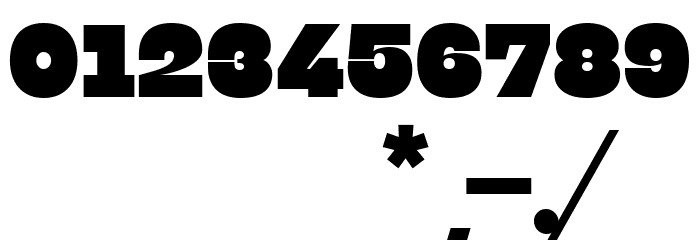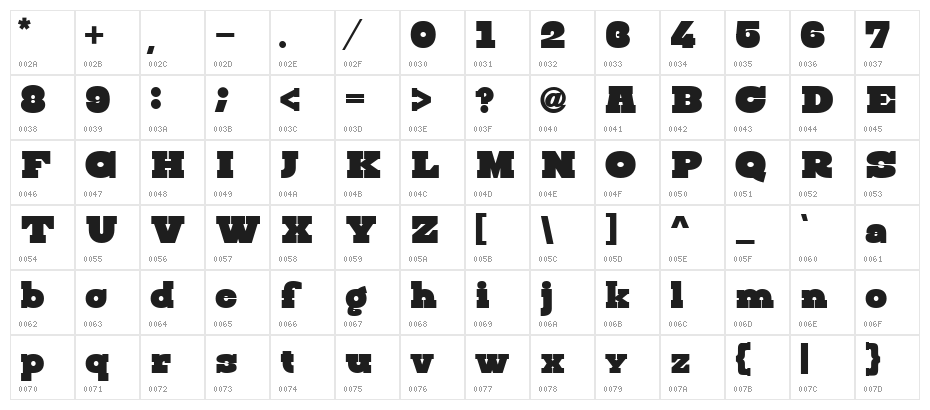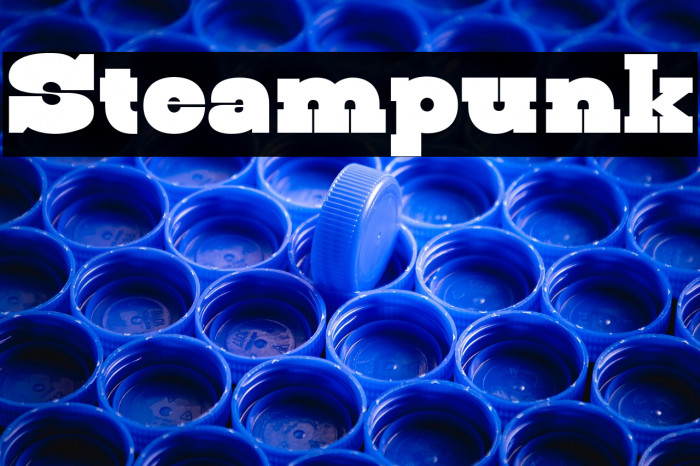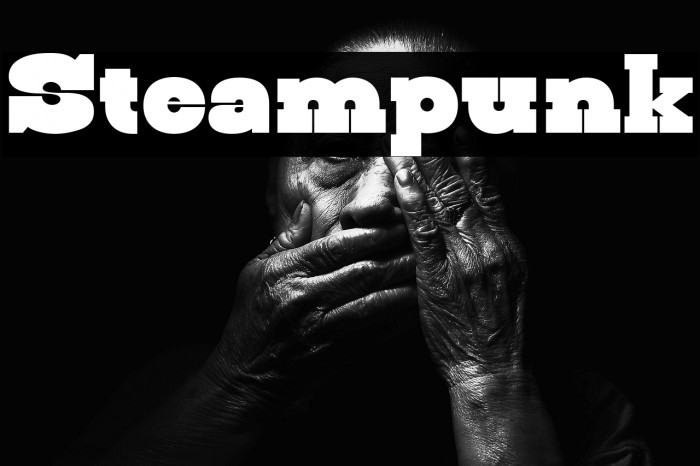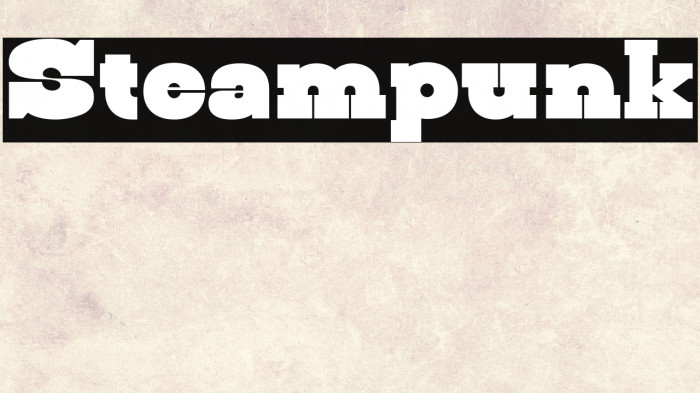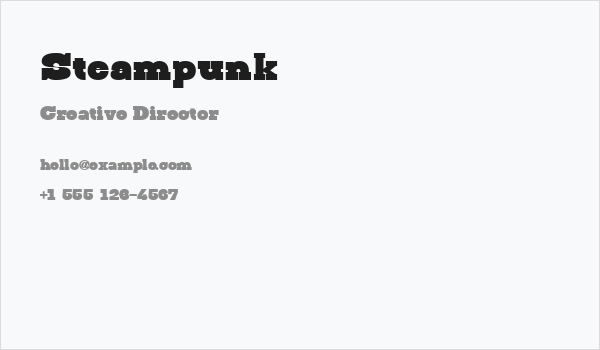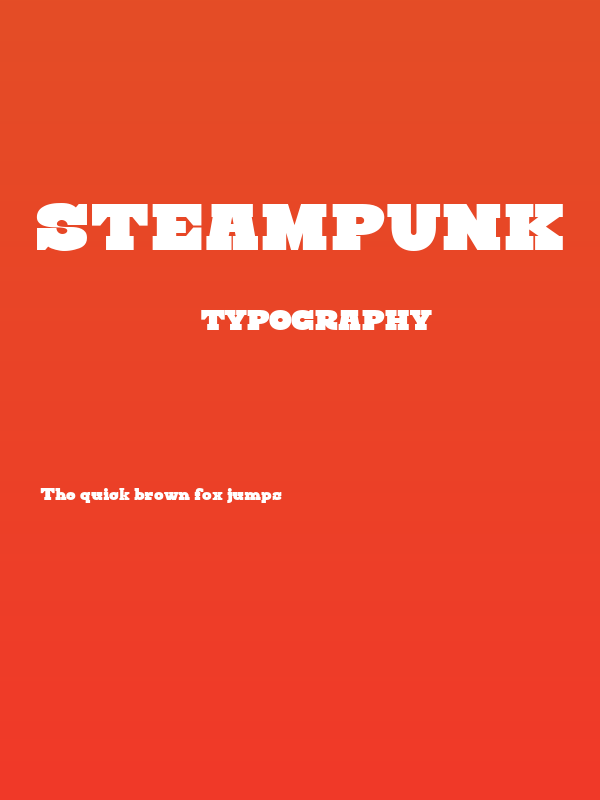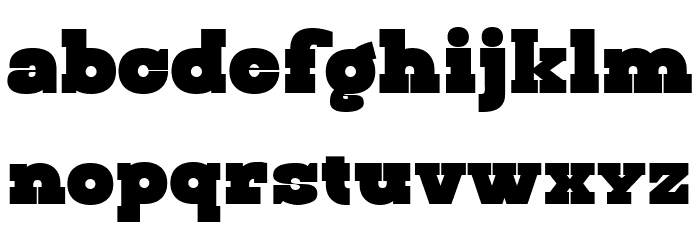
Steampunk Font
Steampunk Description
This font features a bold, robust design with thick, blocky characters that convey a sense of strength and impact. The uppercase and lowercase letters maintain a consistent weight, providing a uniform appearance across the board. The numerals and special characters are equally bold, ensuring they stand out prominently. The font's style is reminiscent of industrial or mechanical themes, making it ideal for projects that require a strong, assertive visual presence. The characters are tightly spaced, enhancing the compact and powerful look of the text. The overall design is both modern and vintage, capturing a timeless appeal that can be adapted to various creative applications.
| Overall Style | Vintage, Industrial |
| Proposed Projects | Ideal for posters, logos, headlines, and branding materials that require a bold statement. |